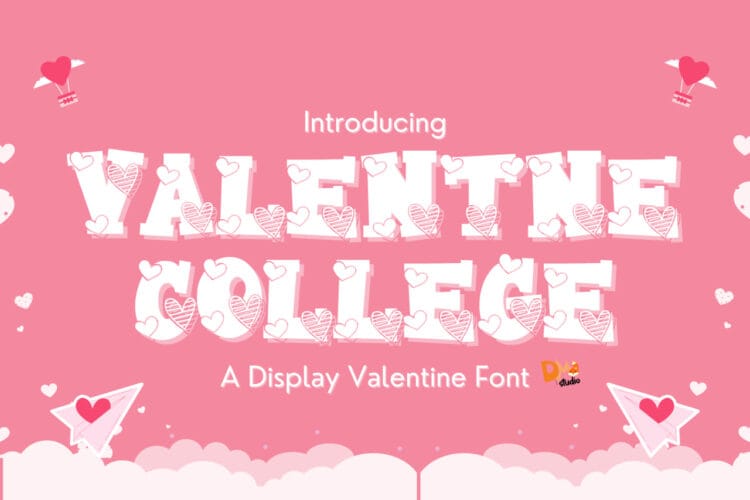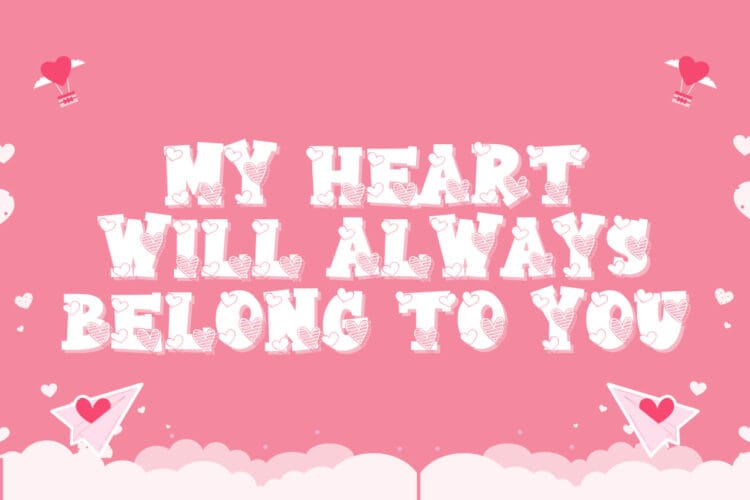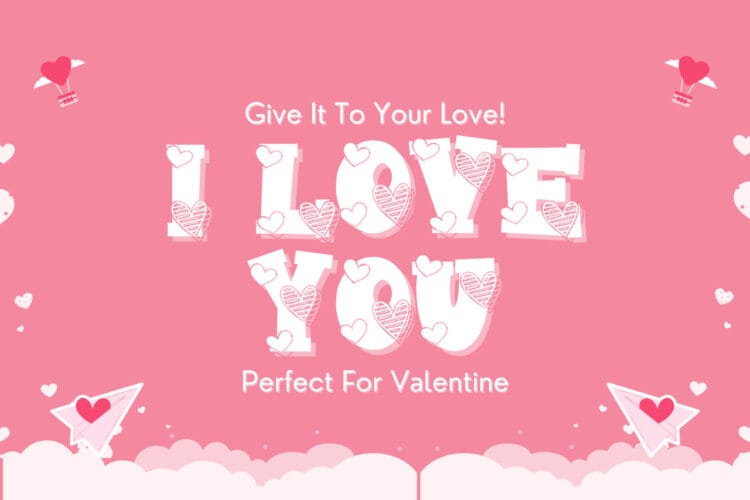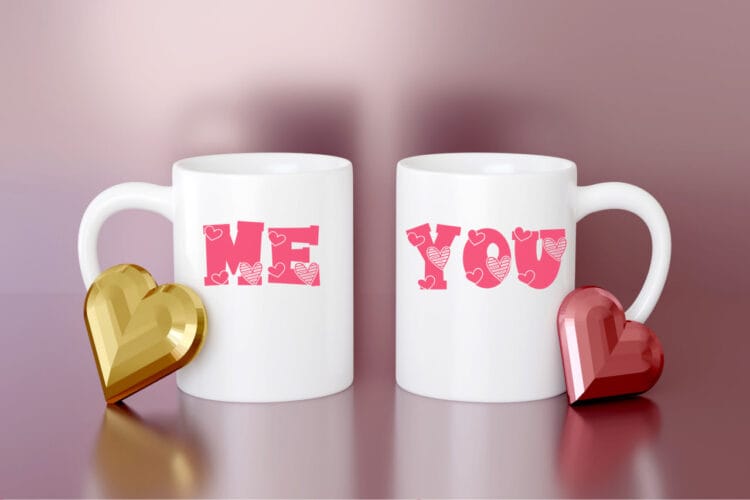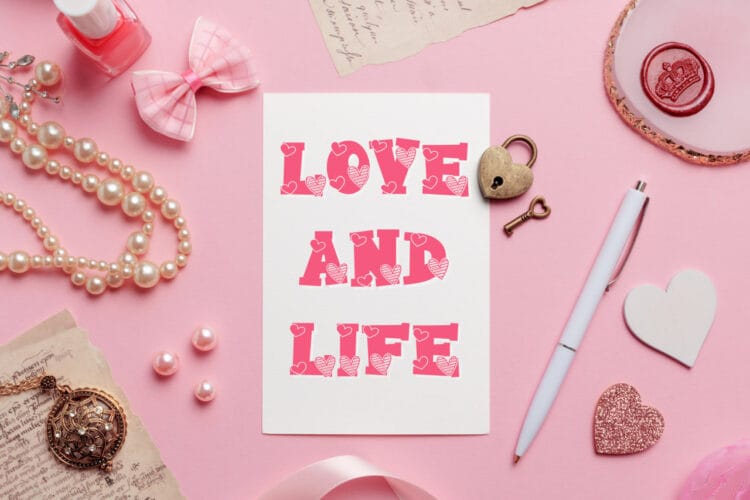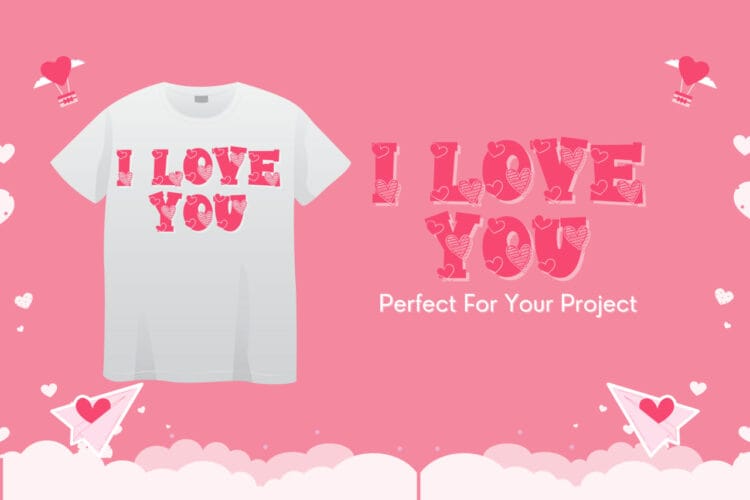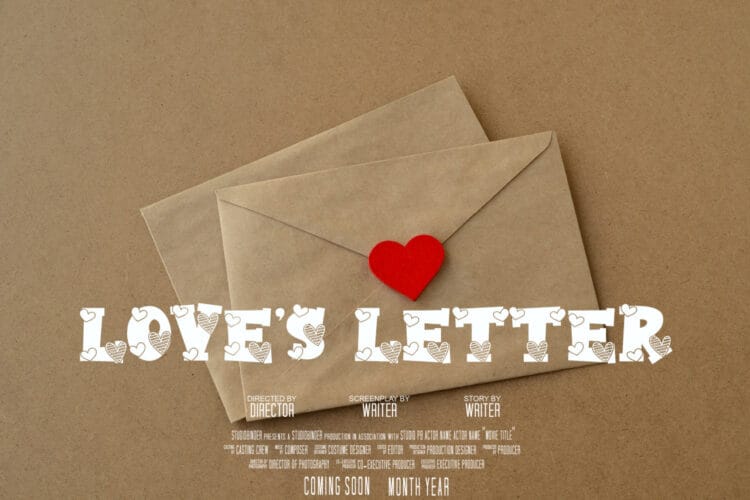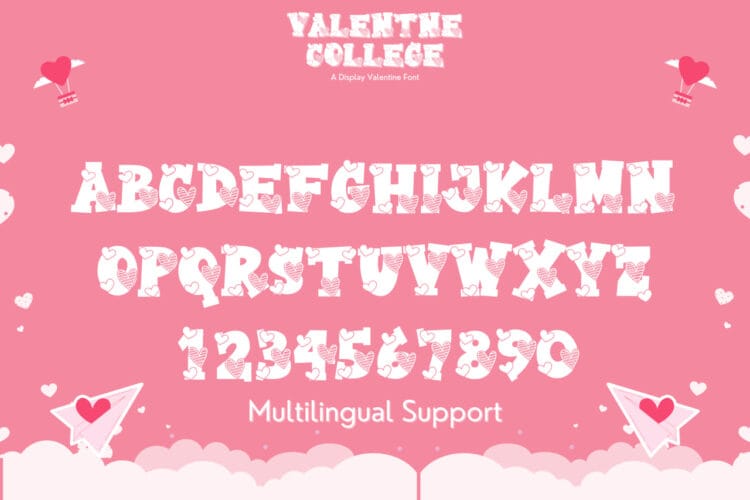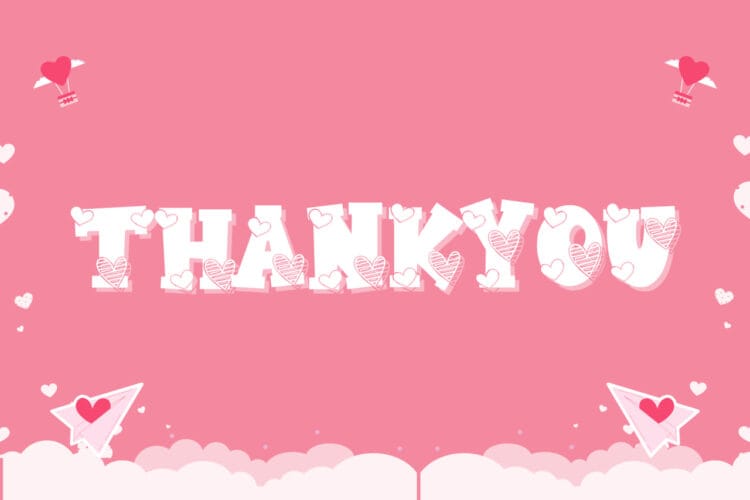
Meet Valentine College Font
Valentine College Font mixes classic varsity style with a sweet romantic twist. Letters feel bold, upright, and easy to read. Because the shapes are sturdy, your words pop on shirts, tags, and thumbnails. Use it for a couple of tees, gift boxes, party banners, and social posts. Moreover, it handles outlines, shadows, and patch textures really well. Therefore, even simple mockups look warm and eye-catching.
Where Valentine College Font shines
Set short phrases like “Be Mine,” “Love Wins,” or initials with a date. Then add stitch edges, double strokes, or tiny hearts to echo vintage college patches. Since spacing is tuned for headlines, layouts come together in minutes. As a result, you can ship full sets for weddings, anniversaries, and Valentine drops. Plus, titles stay crisp on mobile, which helps your listings stand out fast.
Fast setup, sweet results
Design tips with Valentine College Font
Keep copy short and let the letterforms lead. Pair Valentine College Font with a clean geometric sans for captions. Meanwhile, try inner lines, soft shadows, or sticker borders for extra depth. Because the shapes are bold and rounded, felt textures and candy gradients work beautifully. However, avoid long sentences on tiny labels. The font hits hardest with names, dates, and short phrases.
Why creators choose Valentine College Font
You want romance with strong, clear lettering. This typeface delivers. It grabs attention in crowded feeds and speeds your workflow. Also, it scales from sticker sheets to wall banners without losing impact. Consequently, you move from idea to finished product with fewer edits and more sales-ready designs.
Creative ideas to boost Valentine’s sales